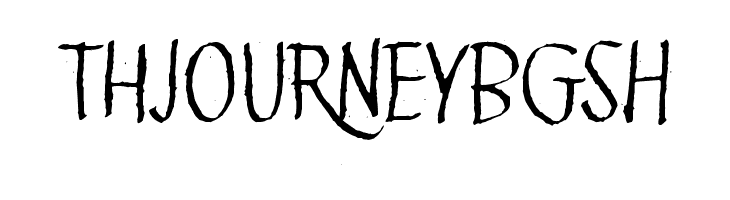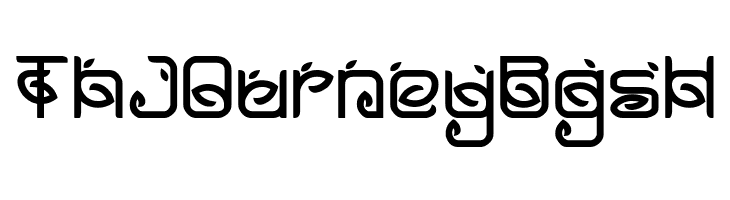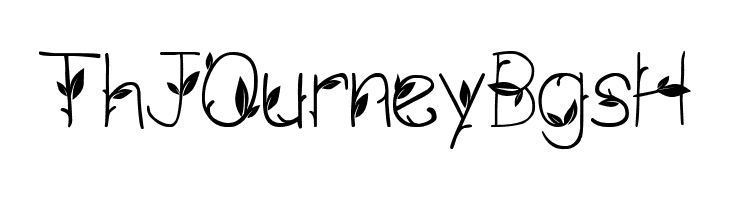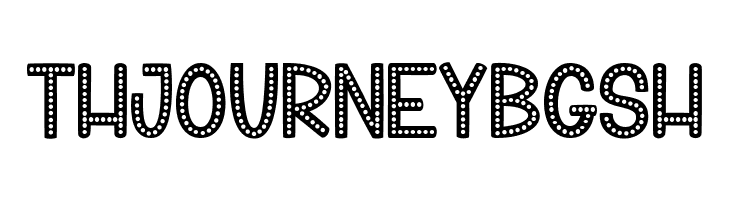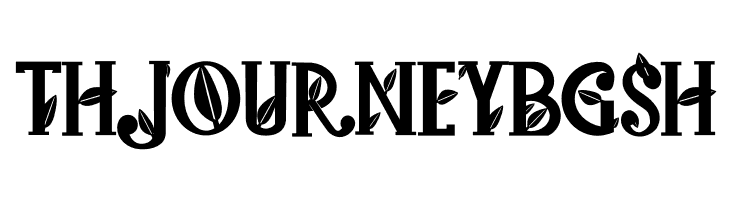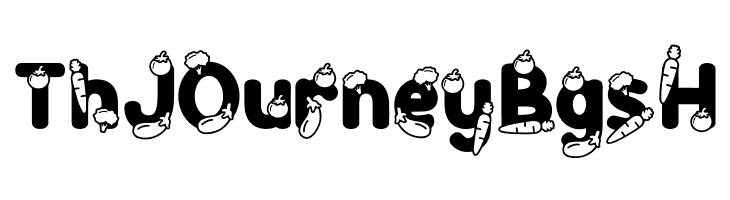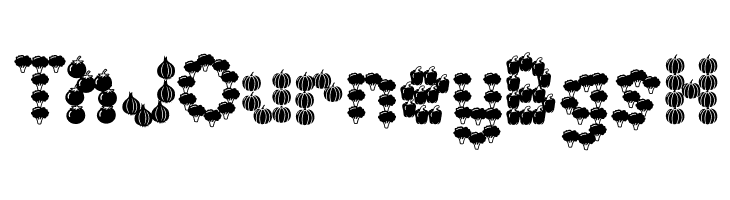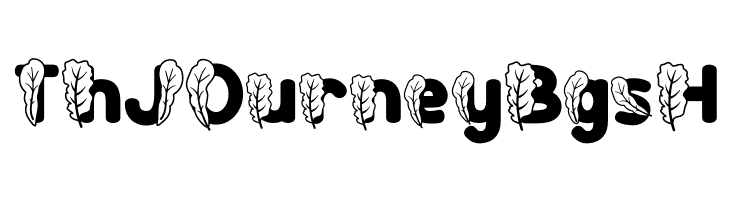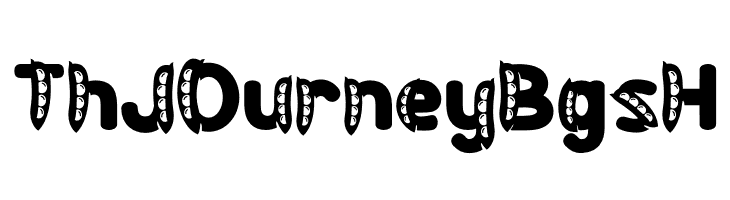
A decorative font with leaf-inspired characters, perfect for nature-themed designs.
A playful, vegetable-themed decorative font with bold, quirky characters.
A playful and whimsical font with decorative, leaf-like patterns inside bold, rounded characters.
A whimsical, vegetable-themed decorative font with bold, textured characters.
A decorative font with leaf-like motifs, perfect for nature-themed designs.
A decorative font with leaf motifs integrated into each character, offering a nature-inspired aesthetic.
A hand-drawn, organic font with a playful and artistic style.
A bold, decorative font with a dotted marquee style.
A modern, geometric font with artistic curves and bold structure.